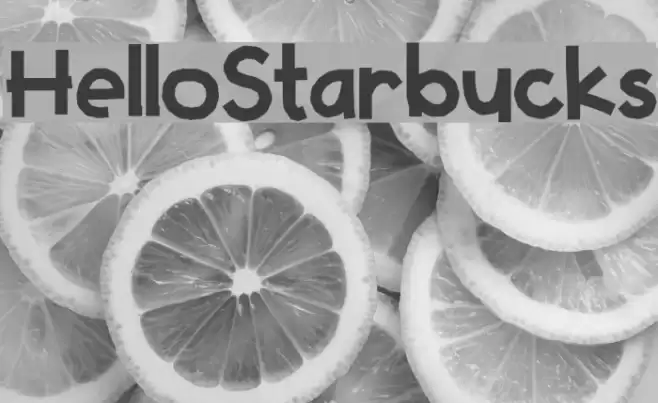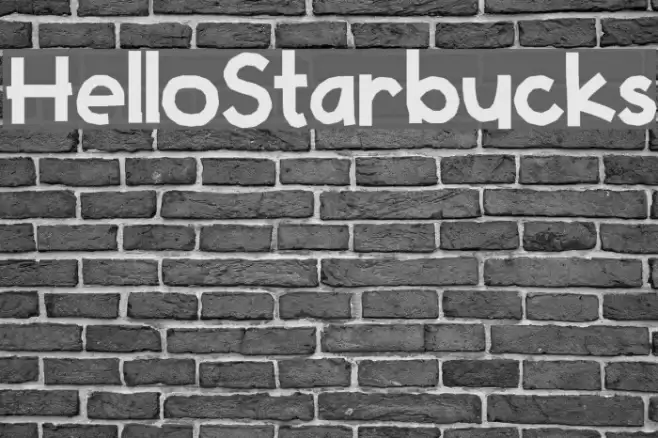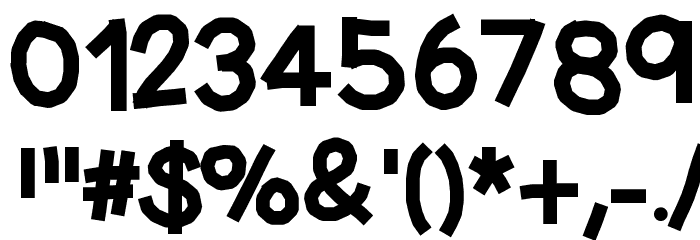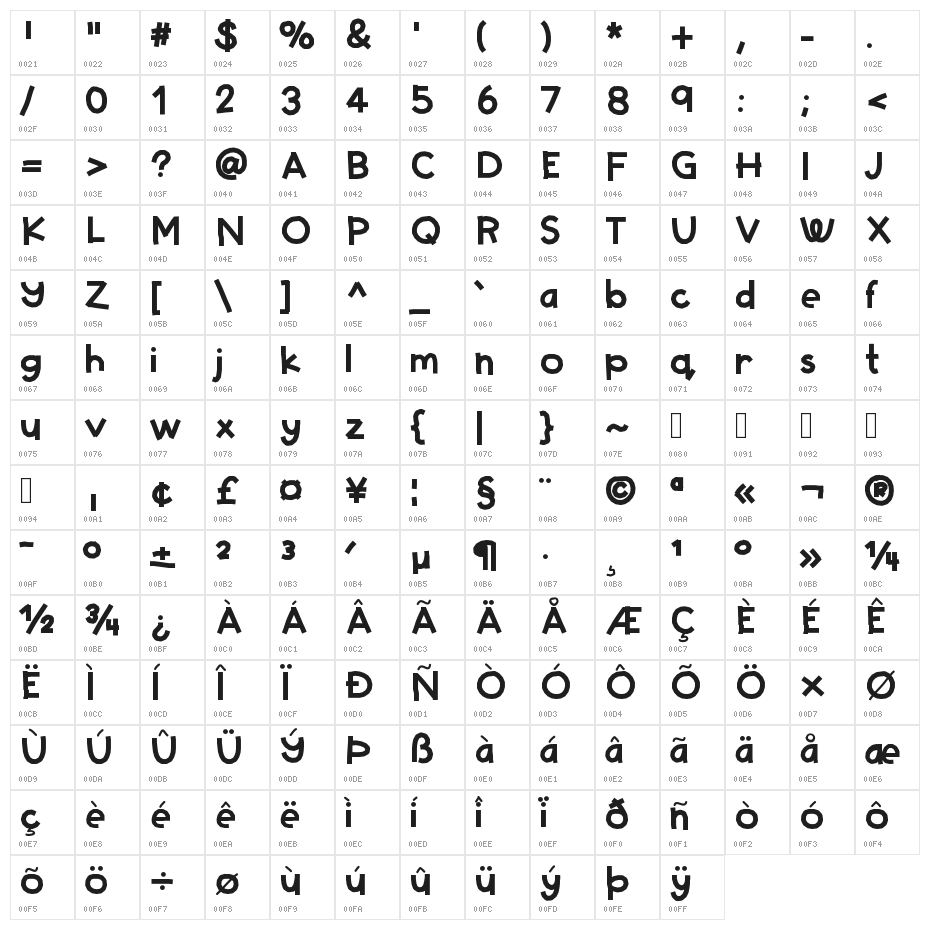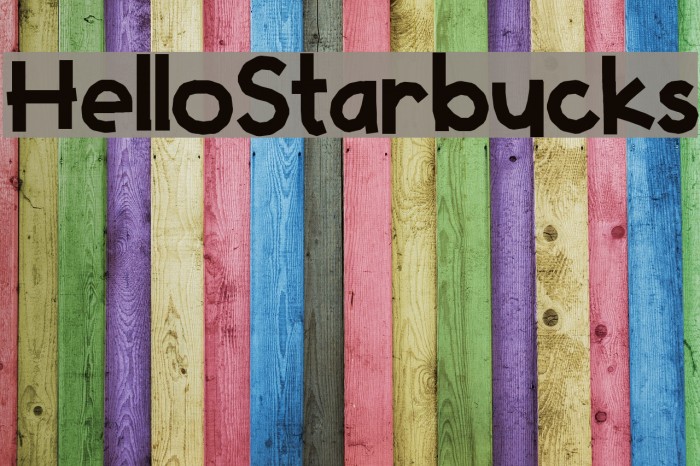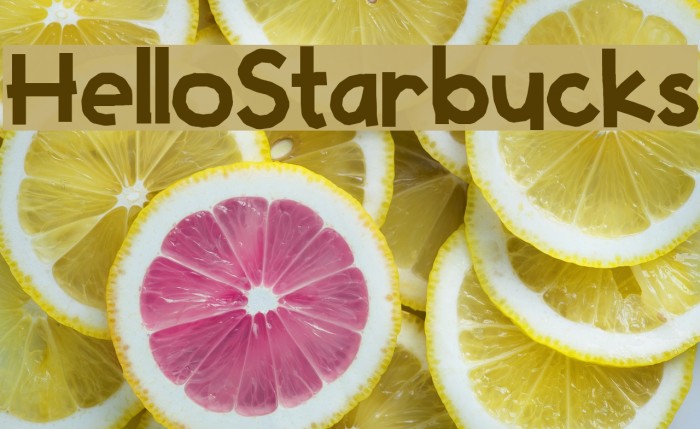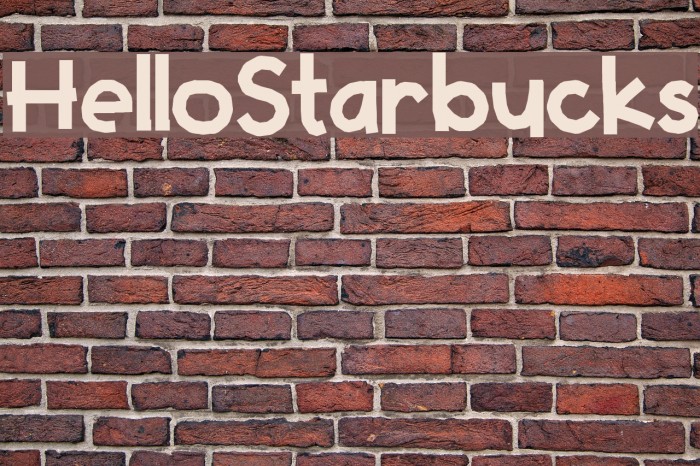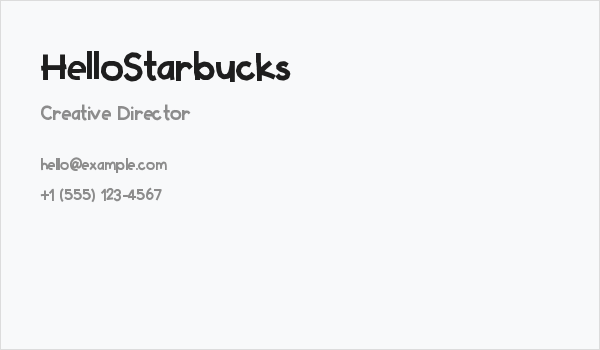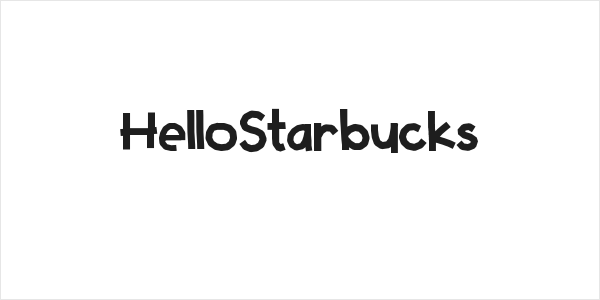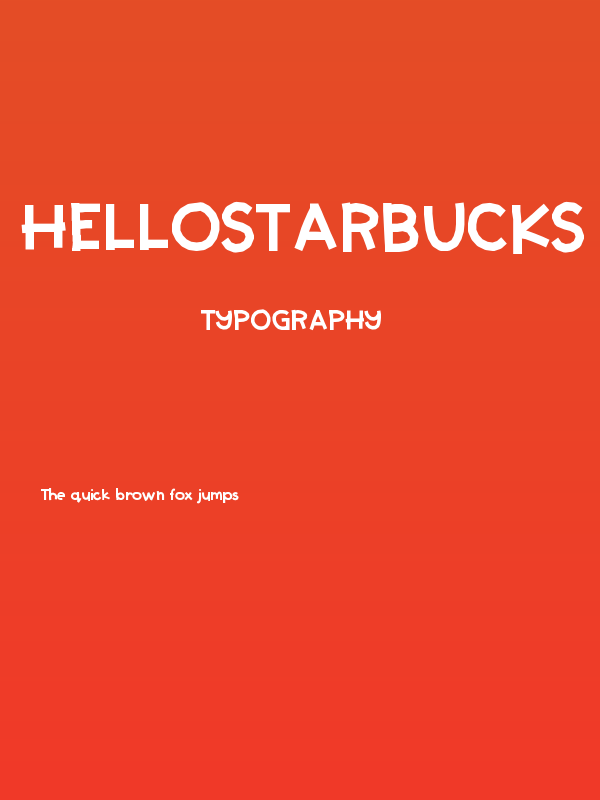
HelloStarbucks Font
HelloStarbucks Description
This font features bold, playful characters with a slightly irregular, hand-drawn appearance. The uppercase letters are strong and prominent, while the lowercase letters maintain a consistent style with rounded edges. The numerals are clear and easy to read, matching the overall aesthetic. Special characters are included, adding versatility to the font. The design is modern and friendly, making it suitable for a variety of creative projects. The strokes are consistent in weight, giving the font a cohesive look.
A bold, playful font with a hand-drawn, modern style from Uncategorized fonts.
- Proposed Projects: Ideal for children's books, playful branding, posters, and social media graphics.